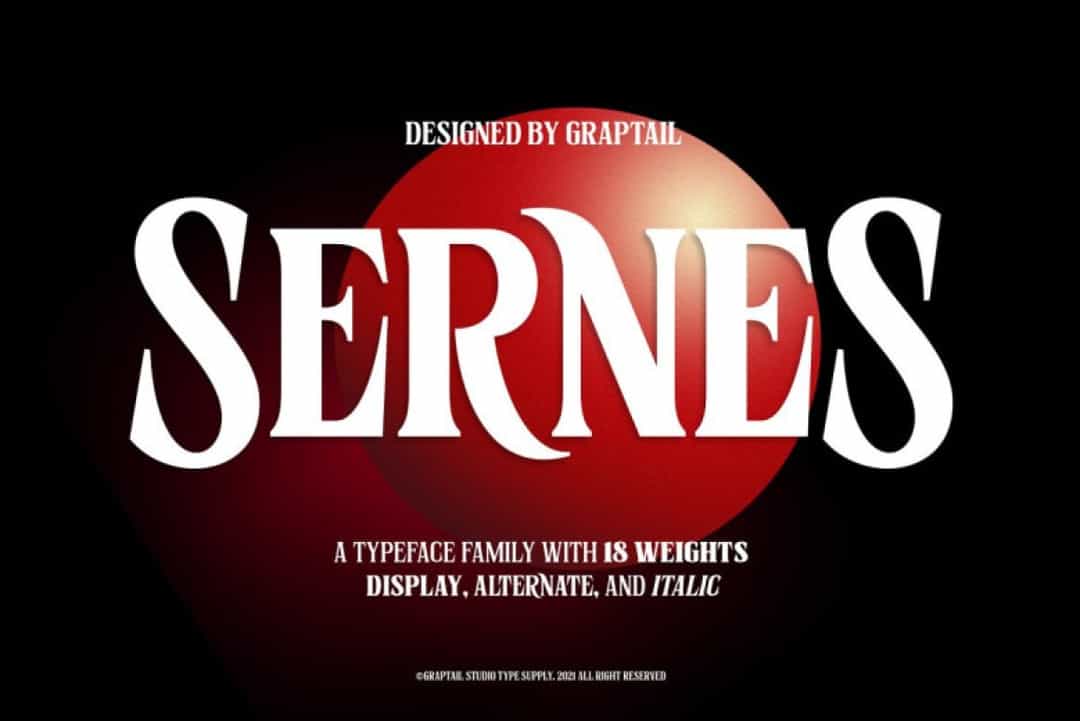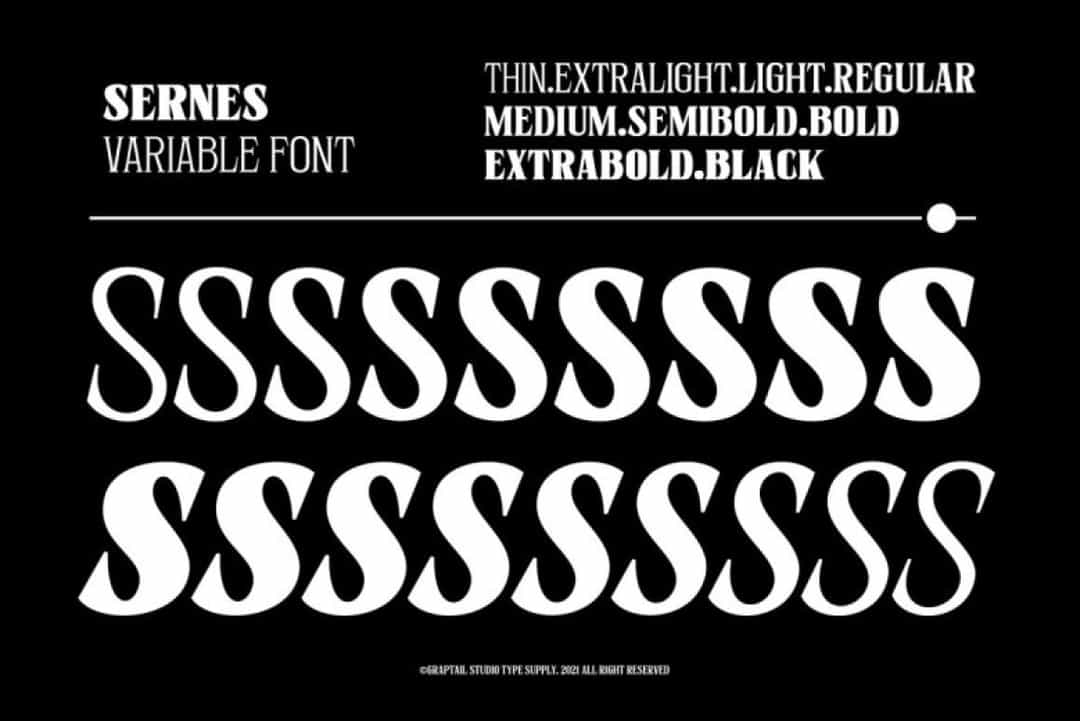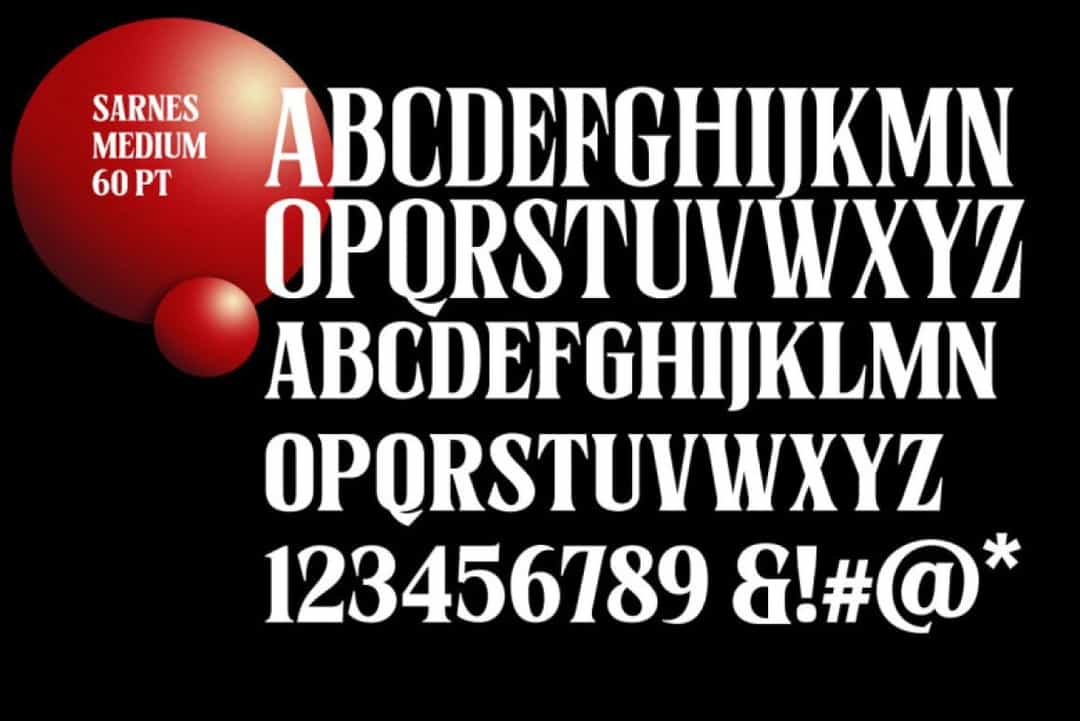
Discover Sernes Font, part of the Serif Display collection—a versatile and unique font perfect for adding a personal touch to your projects. Download it for free and enjoy crafting designs with style, from invitations to social media posts. This font is available exclusively for personal use, giving you the freedom to create without limits. Unlock your creativity with Sernes Font today!
Sernes Display Font was inspired by the letterforms found in films like “Stranger Things,” which used condensed letters. This font comes in 18 weights: display, alternative and italic.